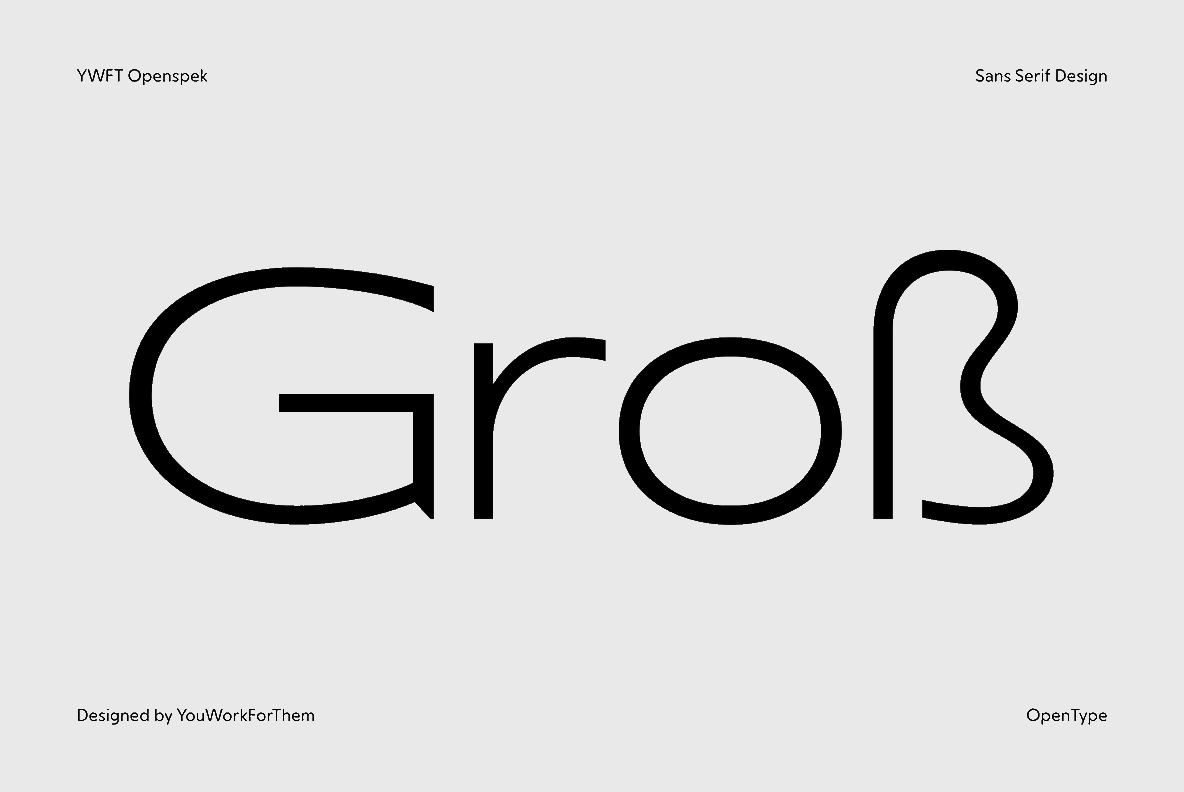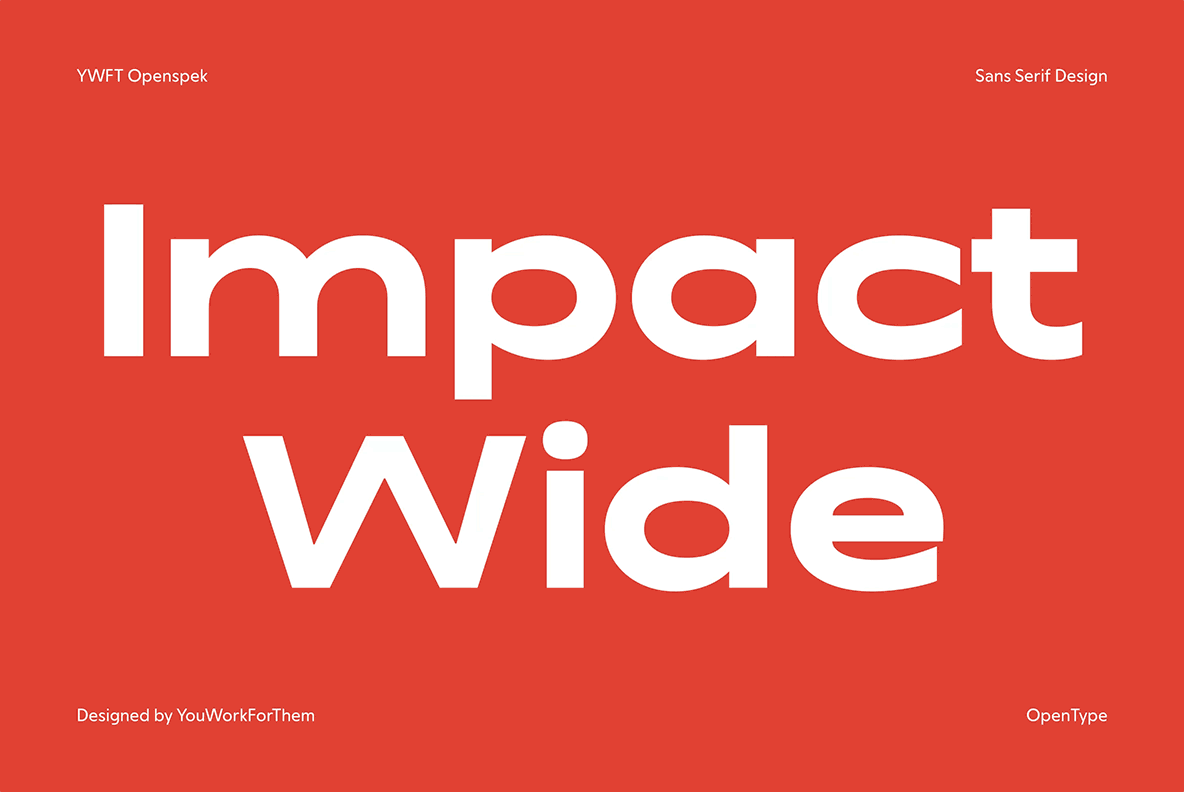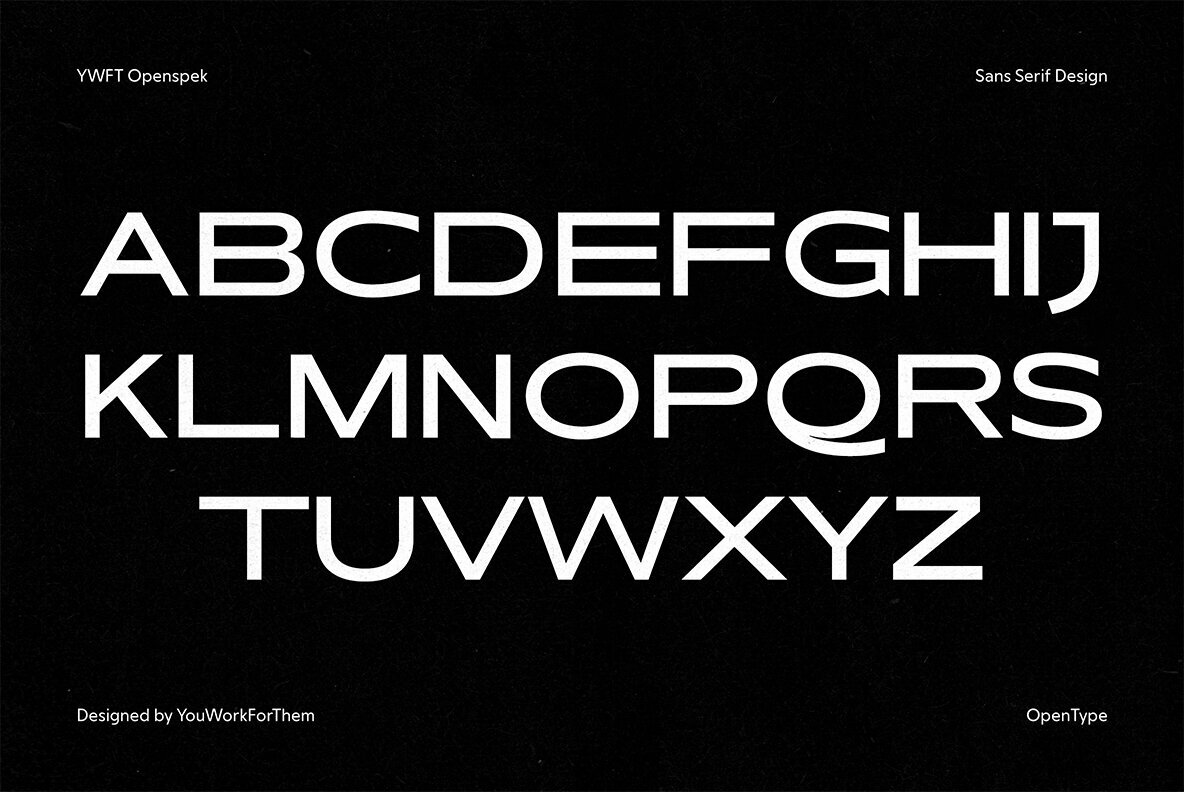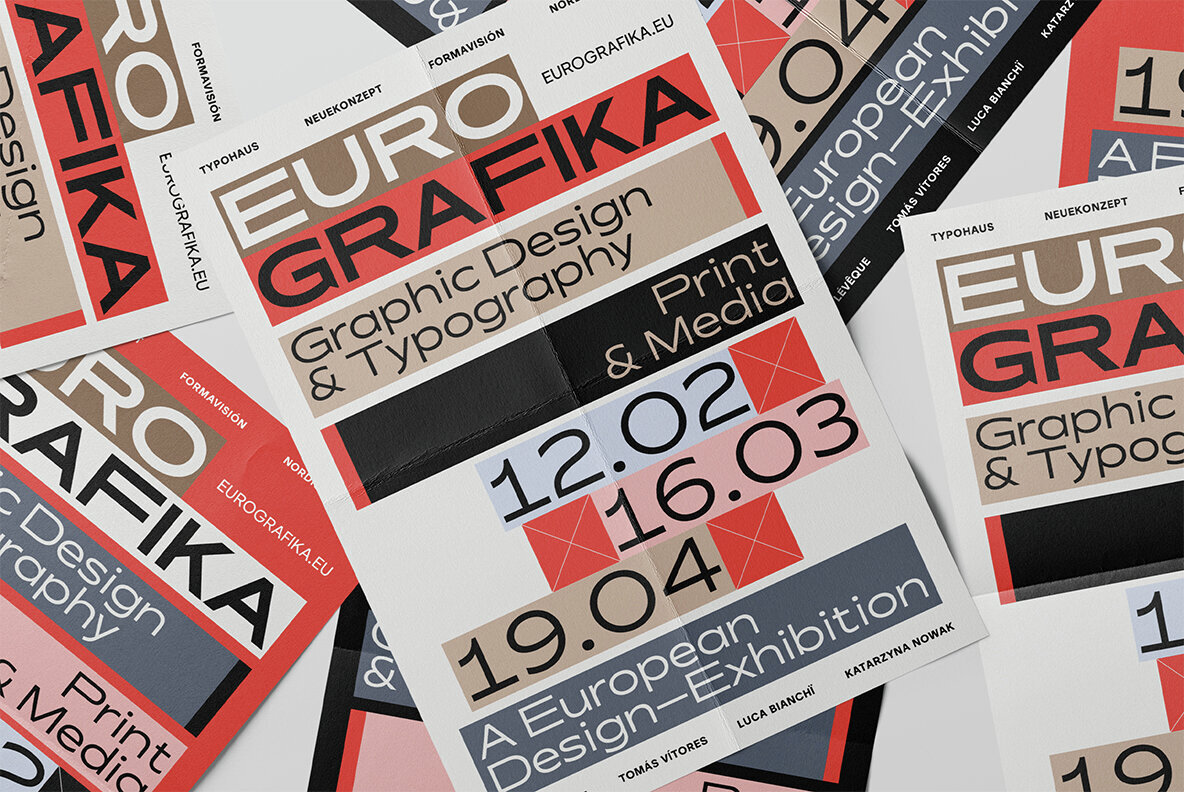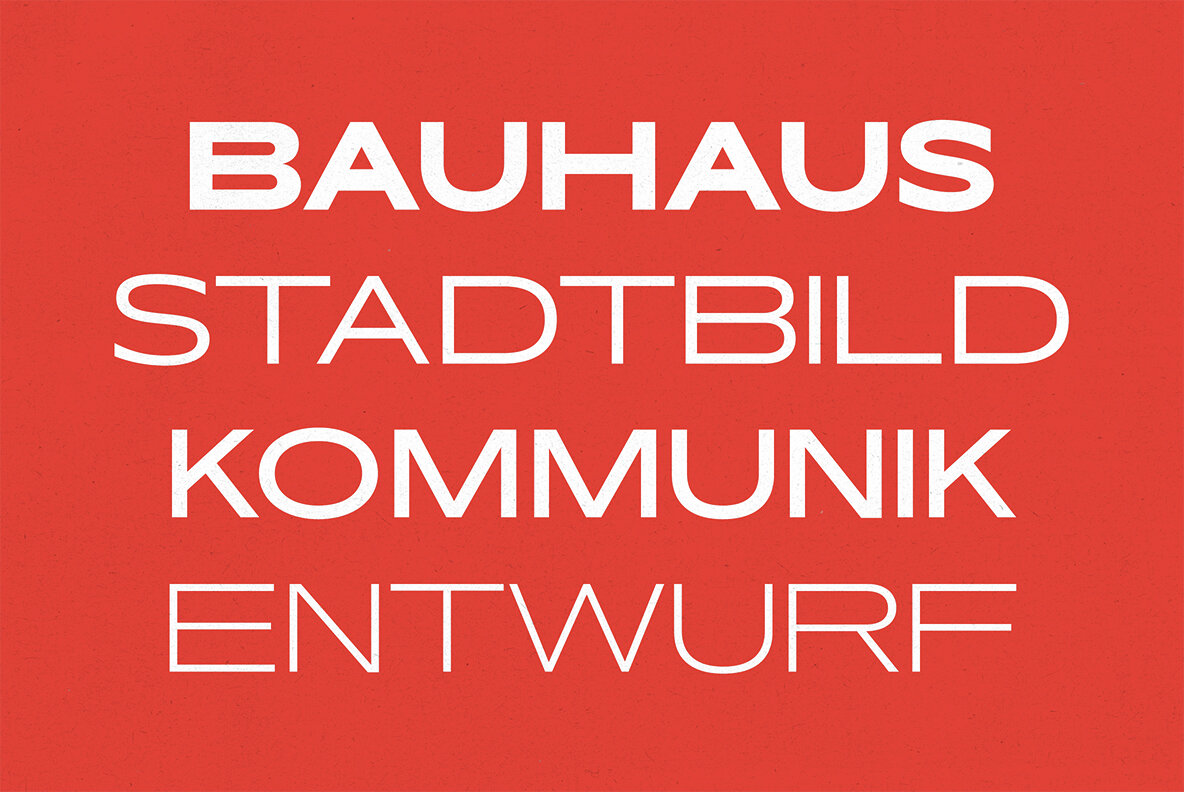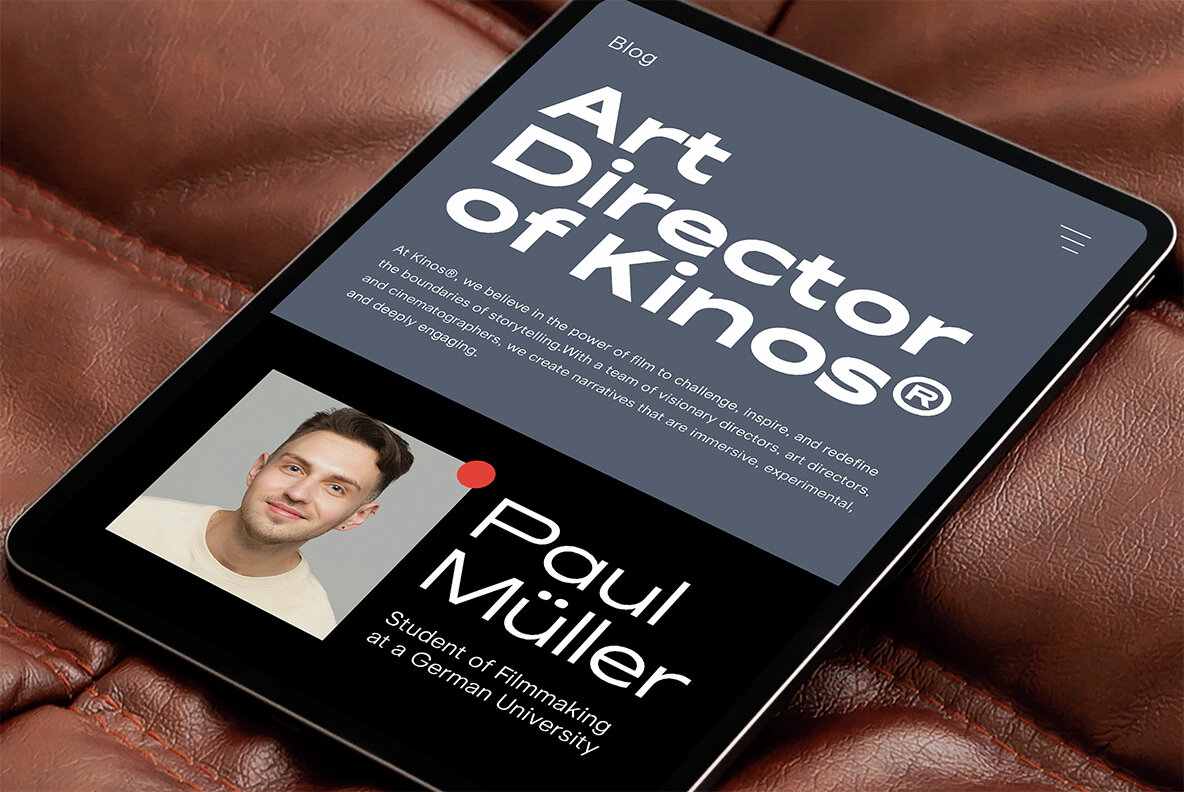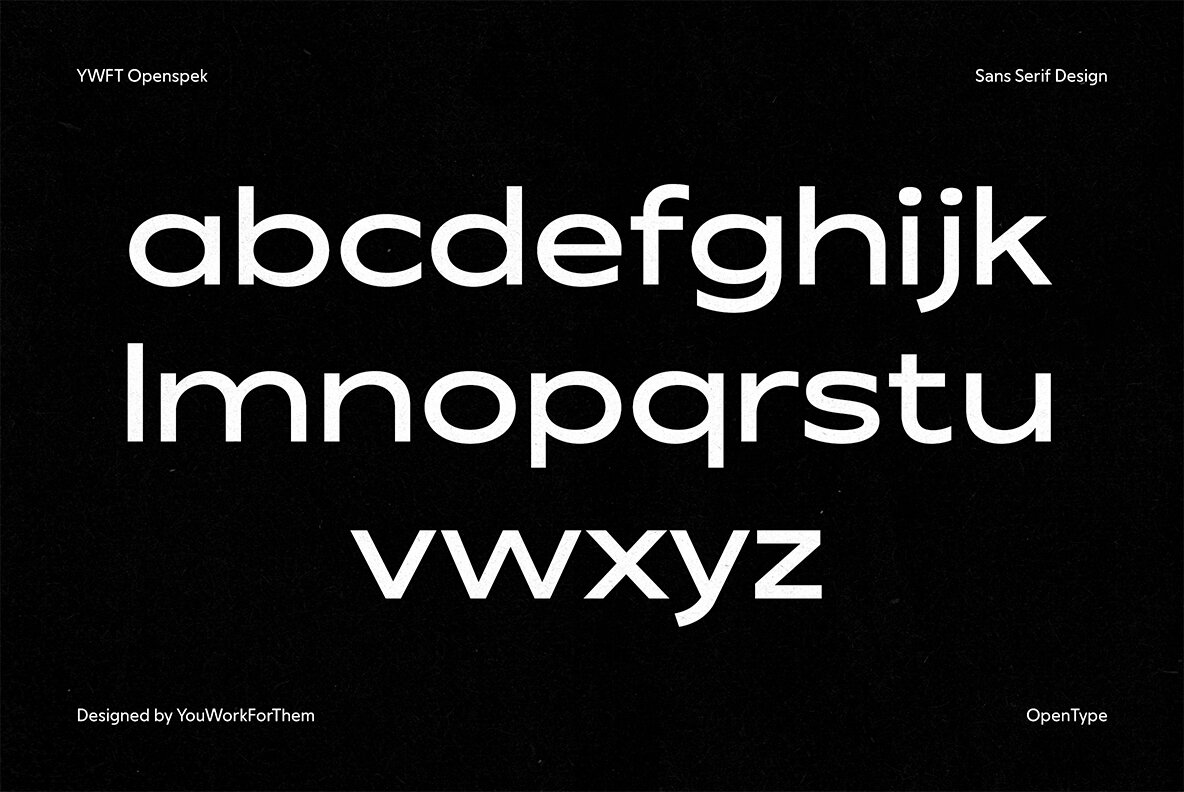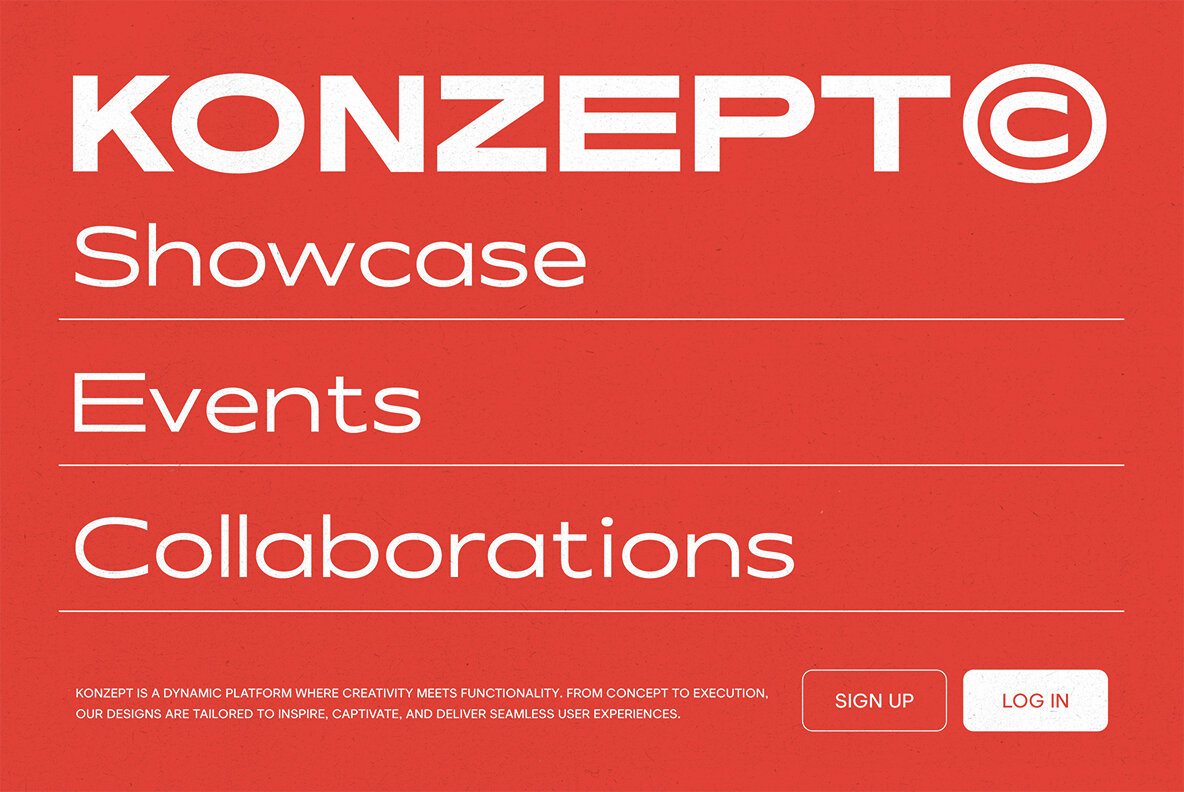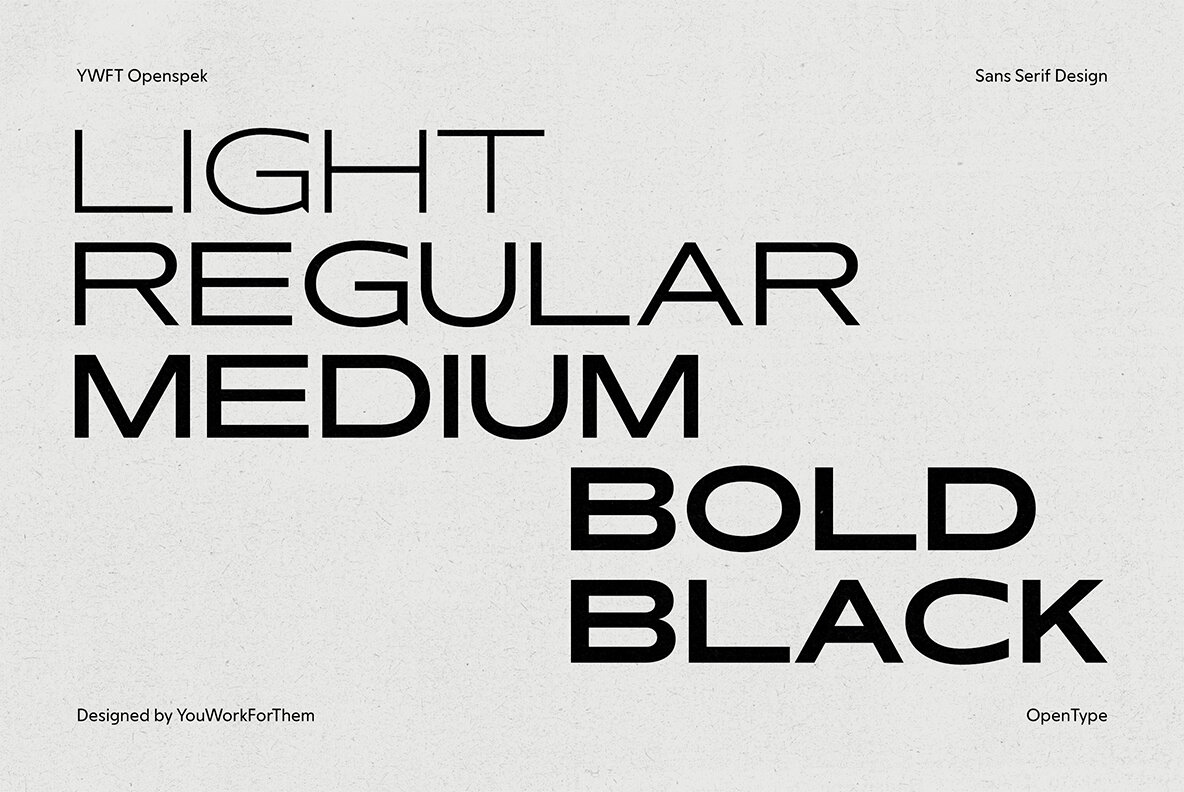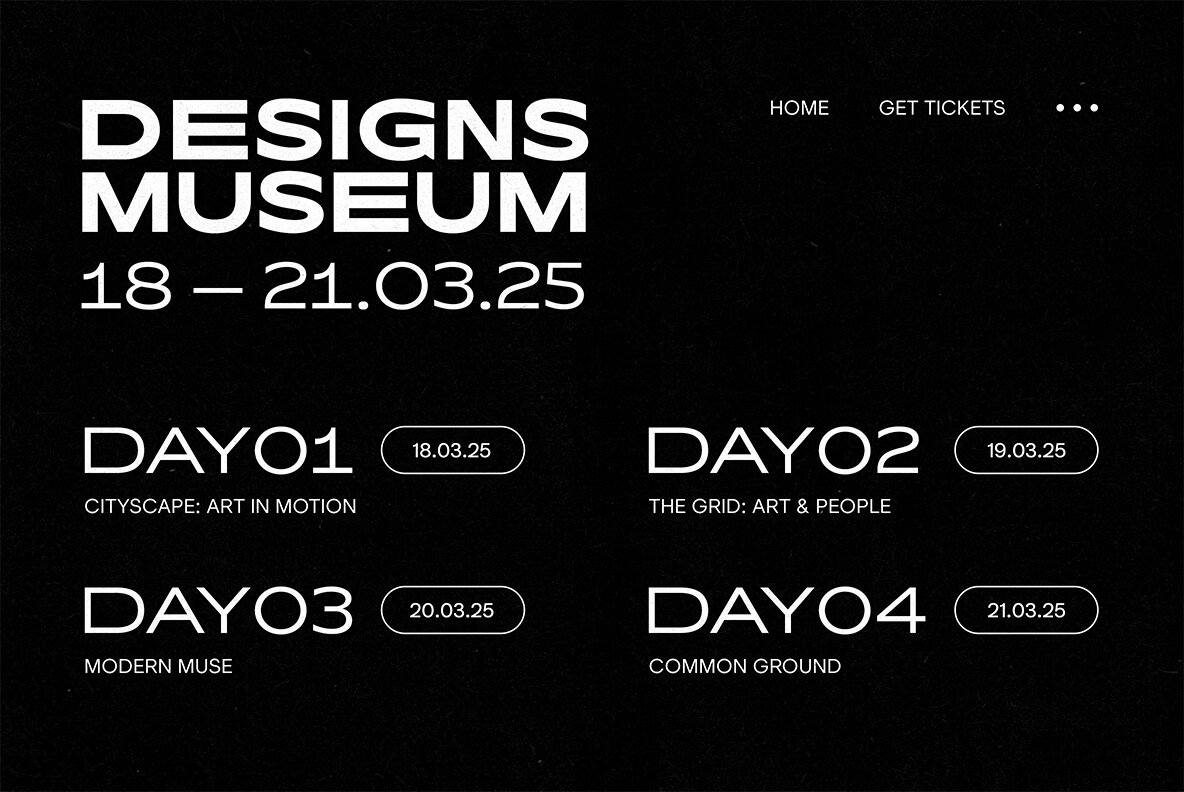
YWFT Openspek Font
Introducing YWFT Openspek, an exclusive sans-serif typeface by YouWorkForThem, designed for contemporary creatives. This modern font combines clean, geometric precision with subtle humanist elements, creating a perfect balance of functionality and warmth. It’s ideal for projects that require a wide, technical sans-serif design with just the right amount of personality. Each weight in the Openspek family comes with over 440 glyphs, providing robust support for multilingual applications and advanced typography. With its wide sans-serif form, Openspek brings a slightly technical vibe softened by a humanist touch. This makes it an excellent fit for: YWFT Openspek’s unique characteristics make it a go-to typeface for designers seeking versatility and style. Its broad, open proportions provide ample room for creative expression, whether you're designing for print or digital mediums. Discover YWFT Openspek and add this geometric masterpiece to your design toolkit. Additional products used for slideshow images:YWFT Openspek: Clean Geometry Meets Humanist Sensibility
Perfect for Modern Aesthetics
An Exclusive YouWorkForThem Typeface